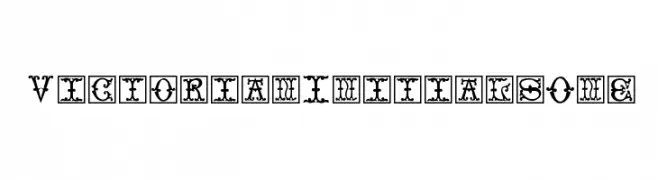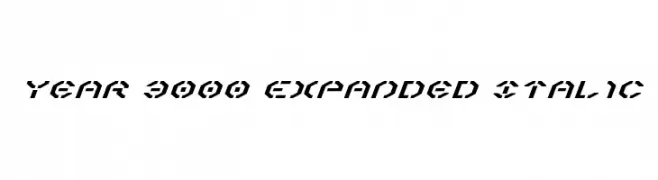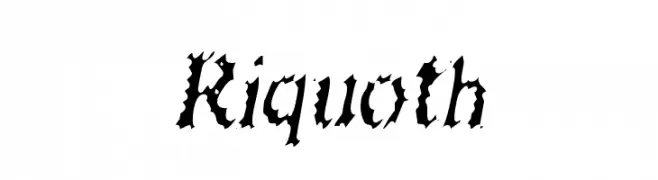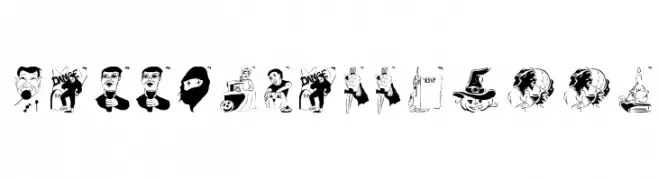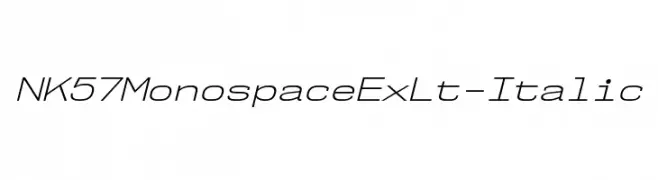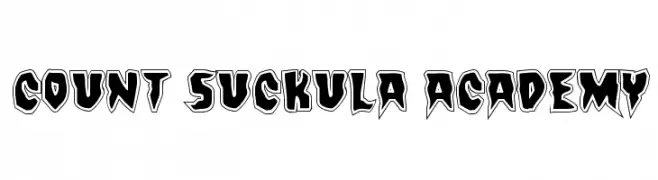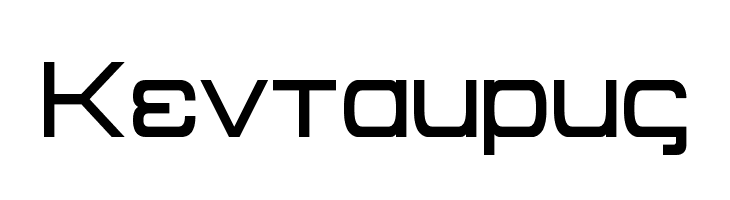
A rugged, distressed font with jagged edges and high contrast strokes.
A modern, dotted italic font with a digital aesthetic.
An ornate, Victorian-inspired decorative font with intricate flourishes.
A bold, expanded, and italic futuristic font with geometric and angular design.
A decorative Halloween-themed font with playful, illustrated characters.
A modern, monospaced italic font with light strokes and a clean design.
A bold, geometric font with a modern and industrial aesthetic.
A bold, edgy font with sharp angles and a gothic flair.